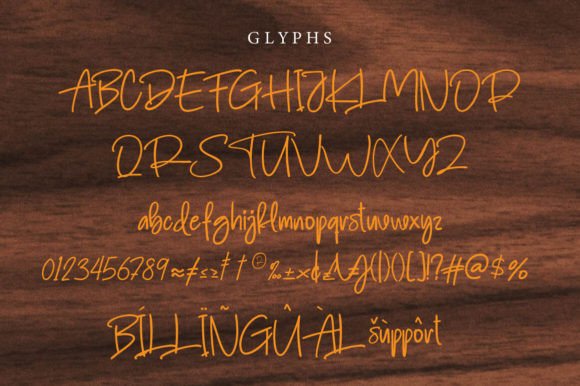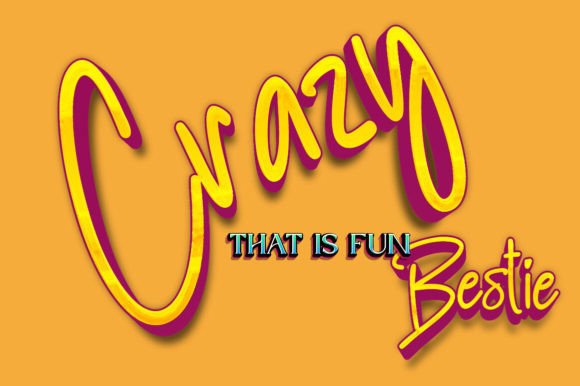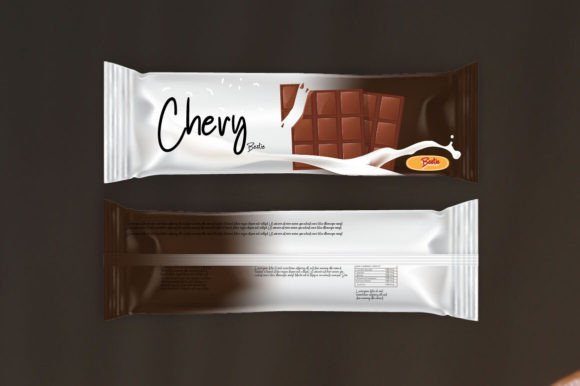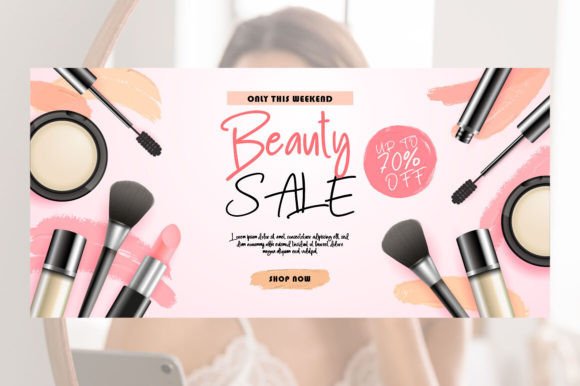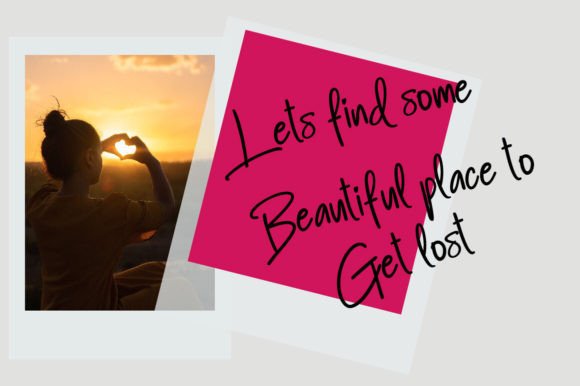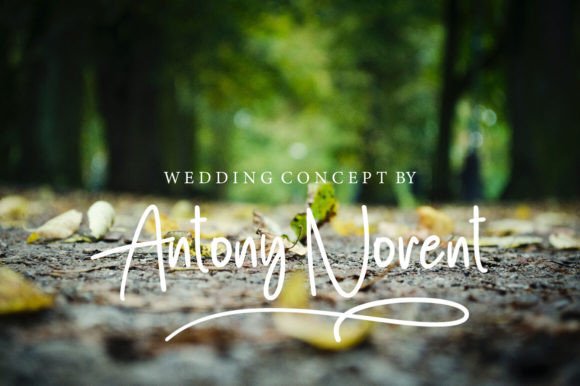
The Perfect Script for Your Next Project: Introducing Bestie Font
Have you ever stared at a blank page, desperately searching for the perfect font to bring your creative idea to life? We’ve all been there – the blank stare, the scribbled notes, the endless font browsing. But what if we told you there’s a font that can make all the difference?
Meet Bestie Font, a beautiful, handwritten script that’s as natural as it is modern. Designed to make your projects shine, Bestie Font is perfect for anything from logos and branding to social media posts and advertisements. Whether you’re a seasoned designer or just starting out, this versatile font is a valuable addition to your toolkit.
With Bestie Font, the possibilities are endless. From wedding invitations to comic book covers, this font is sure to elevate your designs and leave a lasting impression.
- Unique Characteristics: The font features a unique blend of modern and cursive elements, making it perfect for creating eye-catching headlines and titles.
Designer Review: Bestie Font
When I first laid eyes on the Bestie Font, I was immediately drawn to its playful and youthful vibe ✨. The rounded edges and whimsical letterforms make it perfect for creating a fun and approachable atmosphere in any design project. The font is highly customizable, allowing designers to adjust the weight, spacing, and even the color to fit their unique needs.
One of the standout features of Bestie Font is its versatility ✨. It can be used for a wide range of applications, from children’s books to social media graphics, and even restaurant signage. The font is also highly legible, making it an excellent choice for body text or headings.
- ⚠️ Limited to a single style, which may limit its use in more formal or professional designs
- ⚠️ Some users may find the font too playful or childish for certain applications
- ⚠️ May not be suitable for small text sizes due to its rounded edges
Overall, I think the Bestie Font is a great addition to any designer’s toolkit. While it may have some limitations, its unique personality and versatility make it a great choice for a wide range of projects. With a little creativity, the Bestie Font can help designers create engaging and effective designs that really pop ✨.
For the most out of Bestie Font, try combining it with bold or italic styles for added emphasis.
Use Bestie Font for titles and headings to create a consistent visual brand.
Bestie Font is ideal for:
- Designing social media graphics.
- Creating flyers and posters.
- Developing branding materials.
Alternatives to Bestie Font for Designers
Lato is a modern sans-serif font designed for digital media. It is highly legible and versatile, making it suitable for various design projects such as logos, headings, and body text. Lato is more geometric and clean compared to Bestie Font, which is more rounded and playful.
Montserrat is a sans-serif font inspired by the urban environment of Buenos Aires. It is highly readable and suitable for digital and print media. Montserrat is more condensed and modern compared to Bestie Font, making it ideal for titles and headings.
Open Sans is a clean and modern sans-serif font designed for digital media. It is highly legible and suitable for various design projects such as body text, headings, and titles. Open Sans is more neutral and minimalist compared to Bestie Font, making it ideal for corporate and professional designs.
Merriweather is a classic serif font designed for print media. It is highly legible and suitable for book titles, headings, and body text. Merriweather is more traditional and elegant compared to Bestie Font, making it ideal for formal and academic designs.
Is Bestie Font available in bold and italic styles?
Yes, the Bestie Font includes bold and italic styles, allowing you to add emphasis and variety to your designs. The bold style is ideal for use in headings and titles, while the italic style is perfect for use in body text or quotes.